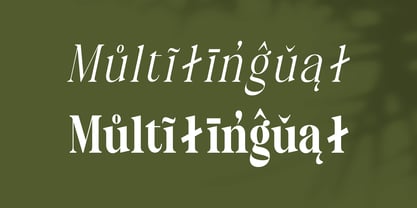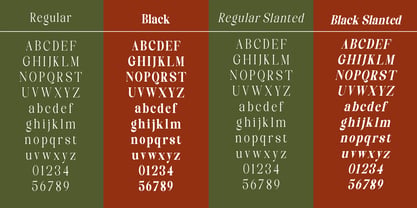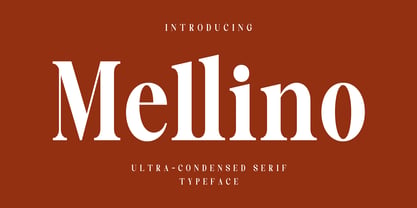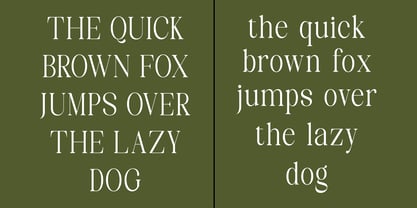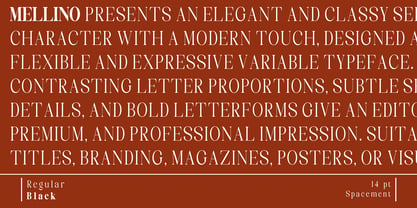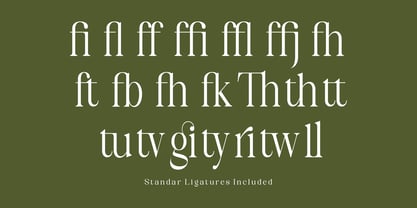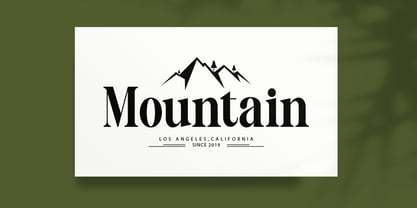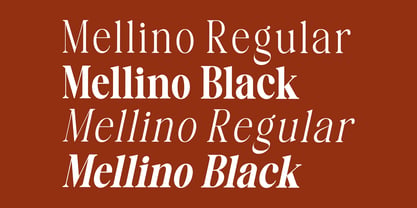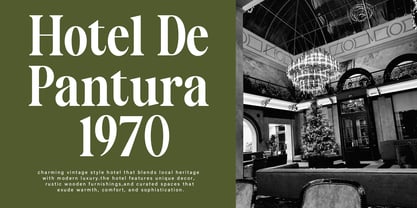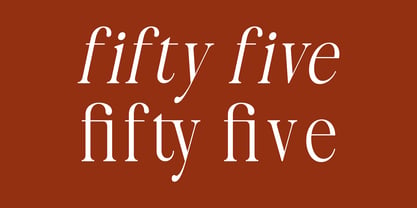
Mellino
by Nk Studio
Mellino – Ultra-Condensed Serif
Take your designs to the highest level of luxury with Mellino, a modern ultra-condensed serif font that blends the elegance of classic editorial style with a bold, contemporary touch. Designed with towering vertical proportions and a slim, space-saving form, Mellino was born to steal the show and become the go-to choice for bold, impactful typography.
Mellino's primary appeal lies in its exceptionally exclusive contrast. The dramatic combination of bold, bold strokes and razor-sharp, thin lines creates a captivating visual rhythm. Each precise curve and clean serif foot inject a sense of luxury, prestige, and high-level craftsmanship into your layout—ensuring your text is not just read, but admired.
As a premium display font, Mellino comes to life when placed at the center of attention. It's a perfect match for luxury product branding, elegant fashion magazine headlines, avant-garde art posters, exclusive cosmetics packaging, and even the visual identities of prestigious hotels and boutiques. Whether you're designing a logo for a high-end brand or crafting a magazine cover layout, Mellino lends instant confidence and authority to your work.
Mellino is ready to support your creative workflow with a comprehensive set of character features, from uppercase and lowercase letters, precise numerals, essential punctuation, and multilingual support.